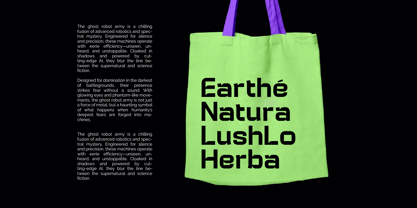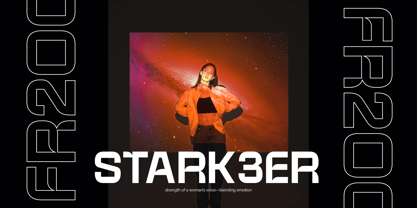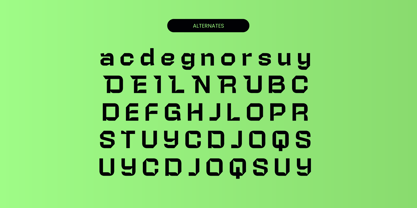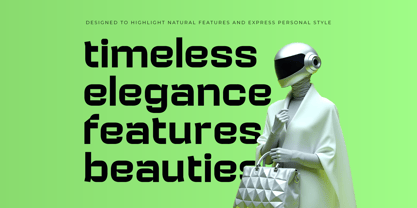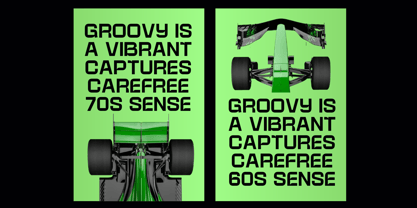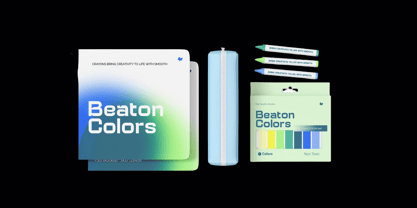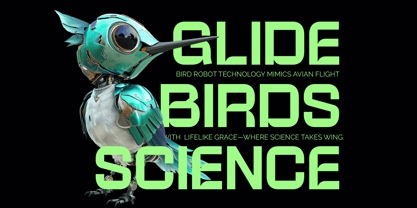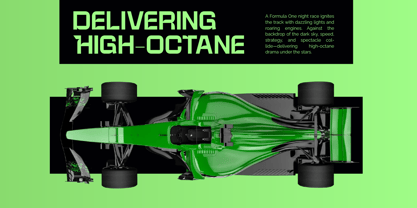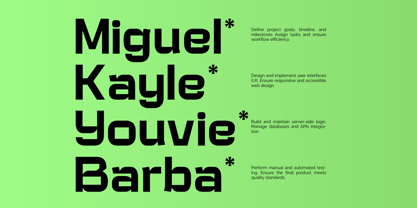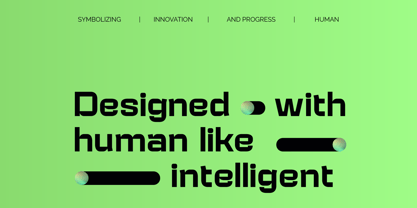
Hurst Bagod
by Timelesstype Studio
The Hurst Bagod Font Family was designed by Heru Utama Putra and published by Timelesstype Studio. Hurst Bagod contains 2 styles and family package options. More about this family
Hurst Bagod - Futuristic Sans Serif Font , from Timelesstype , Suitable for any projects such as: logos, branding projects, homeware designs, product packaging, mugs, quotes, posters, shopping bags, t-shirts, book covers, name card, invitation cards, greeting cards, label, photography, watermark, special events, and all your other luxury and beautiful projects that need a Luxury Serif taste.